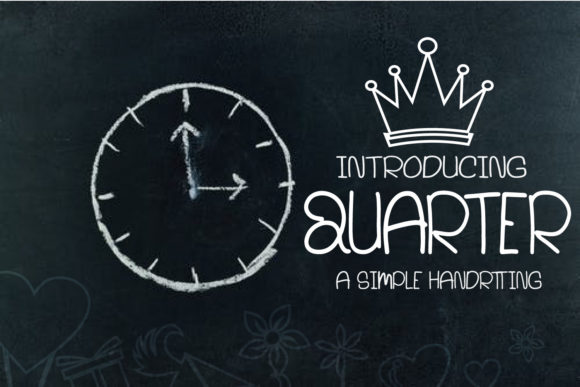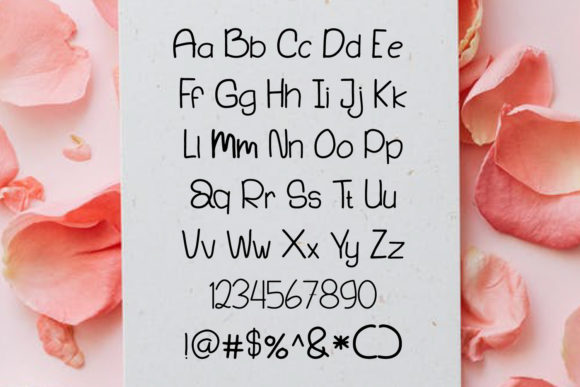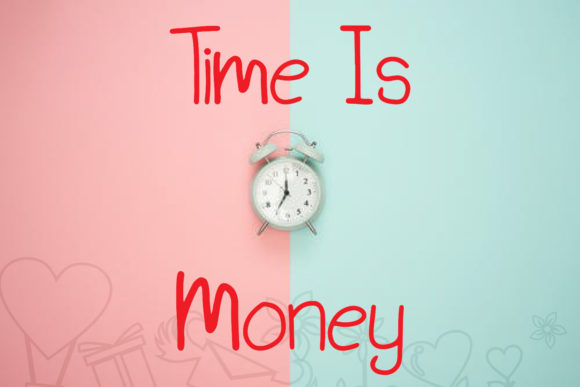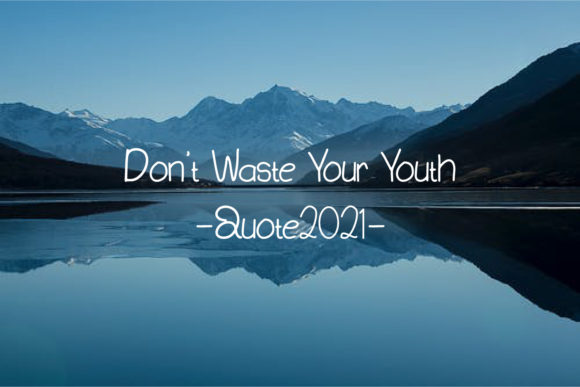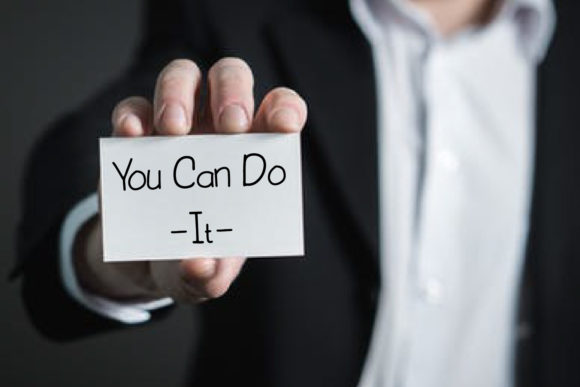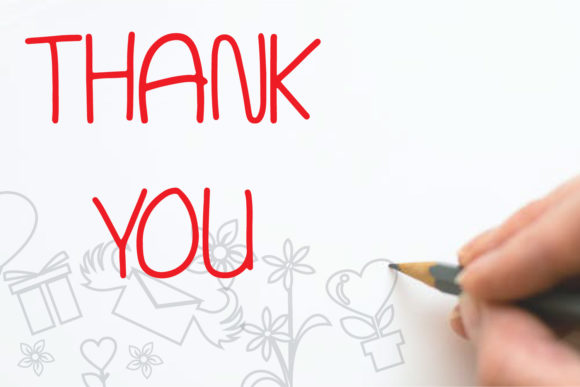
Quarter Font
About Quarter Font
Introducing Quarter, a fun and captivating handwritten font that exudes a simple and friendly style. With its versatile nature, Quarter is suitable for a wide variety of creative ideas, making it a valuable asset in your design toolbox. Whether you’re working on trendy projects or informal creations, Quarter offers endless possibilities to explore.
Quarter’s fun and captivating handwritten design sets it apart as a font that captures attention and adds a touch of playfulness to your designs. Each letter carries a sense of character and spontaneity, creating a visually engaging composition. This simple and friendly style adds a welcoming and approachable feel to your designs, making them relatable and relished by viewers.
The versatility of Quarter allows it to adapt to various design contexts. Whether you’re working on branding materials, social media graphics, packaging designs, or personal projects, Quarter complements different styles and aesthetics. Its friendly and unpretentious nature makes it suitable for a wide range of creative ideas.
Use Quarter to infuse your designs with a trendy and informal vibe. Its handwritten style adds an authentic and organic feel, creating a connection with viewers. Whether it’s used for logos, headlines, posters, or other design elements, Quarter adds a touch of charm and individuality that sets your creations apart.
Quarter’s simplicity and friendly style make it versatile and accessible. Its legible letterforms ensure readability while maintaining a sense of character. Whether used as a primary font or for supporting text, Quarter adds a touch of playfulness and approachability that resonates with viewers.
In summary, Quarter is a fun and captivating handwritten font that brings a simple and friendly style to your designs. Its versatility allows it to complement various creative ideas, from trendy projects to informal creations. Embrace Quarter’s endless possibilities and let its playful and approachable nature enhance the visual appeal of your designs, creating relatable and engaging compositions that captivate viewers.